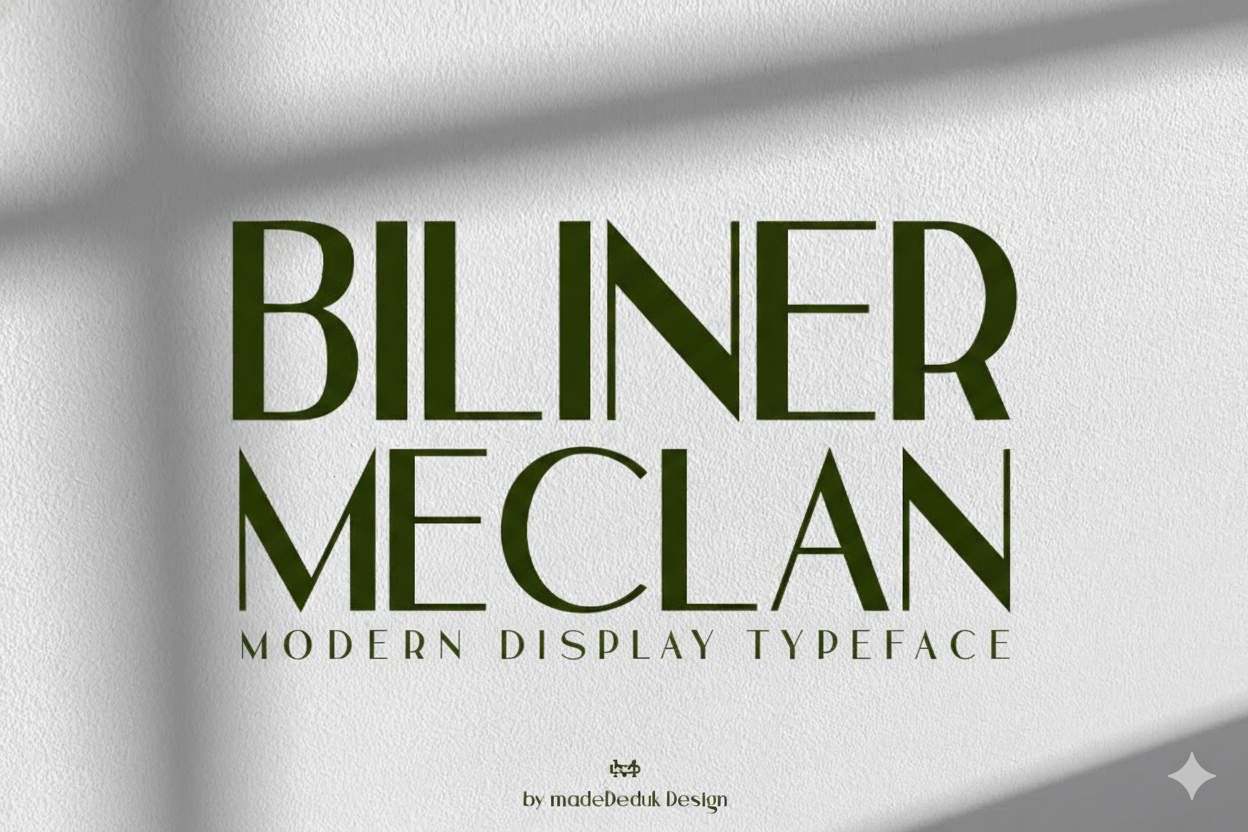
Biliner Meclan: The Essential Minimalist Sans for Modern Branding
Elevate your design aesthetic with **Biliner Meclan**, a refined and highly versatile **Minimalist Sans** typeface. Designed for professional use, this font embodies clean sophistication, making it the perfect choice for any project that requires a modern, streamlined, and legible look.
**Biliner Meclan** is a powerhouse for designers, offering a wide range of features to ensure authenticity and flexibility. Use this font to create premium **branding**, elegant **invitations**, distinctive **fashion** collateral, impactful **posters**, and professional **product packaging**.
Key Features for Professional Design:
- Minimalist & Clean: A timeless **Sans-Serif** classification that works perfectly at **Any Size**.
- OpenType Features: Includes stylistic **Alternative** characters and smoothing **Ligatures** for unique customization.
- Global Ready: Extensive **International Glyphs** and full **Multilingual support** for worldwide branding.